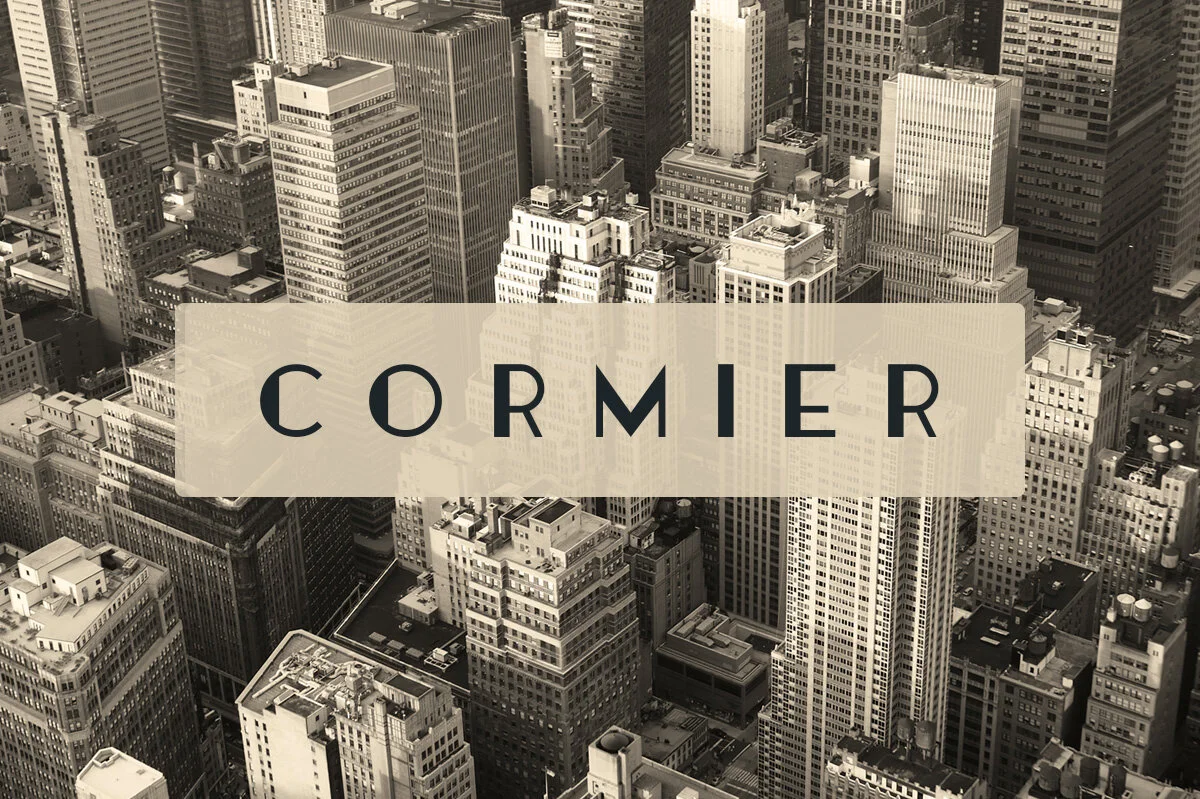
Cormier is an art deco themed typeface that was inspired by an old train ticket I found. The font comes in three styles.
Some letters also include alternates which can be toggled via caps lock.